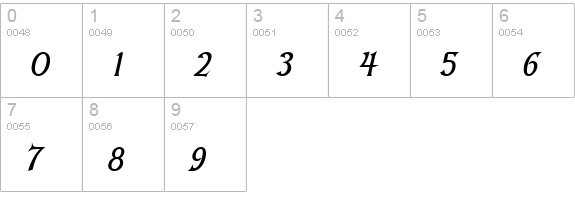
Kelt Condensed BoldItalic is a distinctive, condensed-width variant in the Kelt typeface family \xE2\x80\x94 well suited to design and typography projects.
Introducing Kelt Condensed BoldItalic, a visually striking and versatile font that effortlessly combines elegance with a touch of playfulness. Designed with meticulous attention to detail, this font exudes a sense of sophistication and modernity, making it perfect for a wide range of creative projects. With its bold and italicized characters, Kelt Condensed BoldItalic commands attention and adds a distinctive flair to any design. Whether you're working on branding materials, packaging, posters, or digital graphics, this font will elevate your creations to new heights. What sets Kelt Condensed BoldItalic apart is its seamless blending of classic and contemporary elements. The bold strokes and stylish curves create a harmonious balance, while the italicized slant adds a dynamic and energetic feel. This font truly embodies the best of both worlds. And the best part? Kelt Condensed BoldItalic is completely free! Yes, you read that right. This remarkable font is freely available to download at FontsMarket.com. Whether you're a professional designer or a creative enthusiast, you can now access this exceptional font without any cost. So, why wait? Unlock your creativity and give your projects a touch of refinement with Kelt Condensed BoldItalic. Download it today at FontsMarket.com and discover the endless possibilities that this font brings to your designs. Embrace the freedom of expression and let Kelt Condensed BoldItalic be your creative companion.